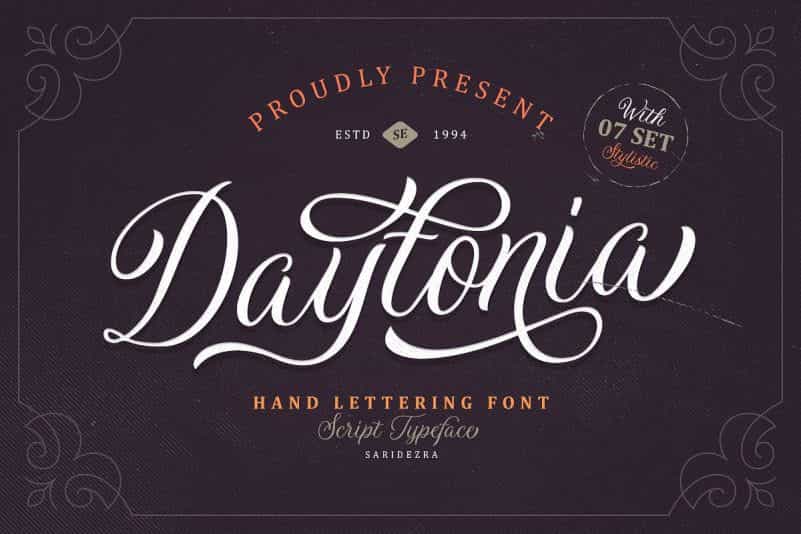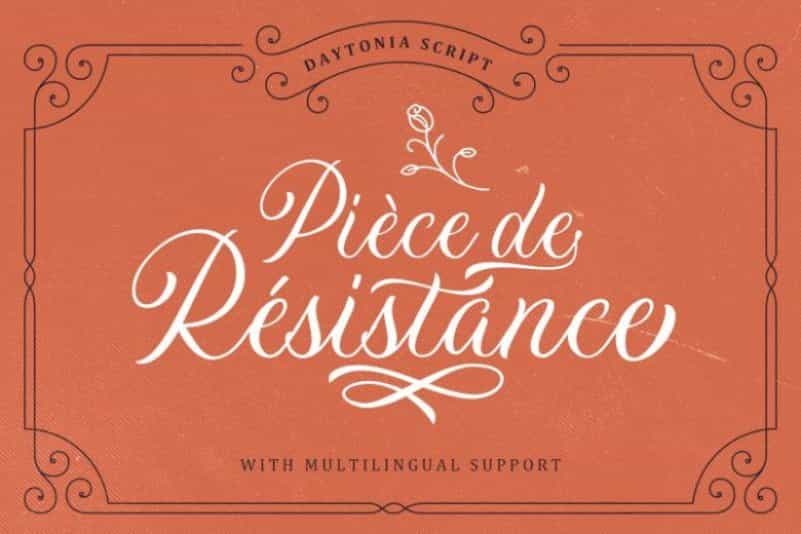
Daytonia Font is the newest product from us, now available for you. It is made and distributed by Sarid Ezra. Daytonia Script Font is a hand-drawn script font. You can apply this font to all the projects you are dealing with. Applicable for logo branding, hand lettering or even apparel design. This font as well has the multilingual, number and symbol support, alternates, swash and underline. This demo font is for PERSONAL USE ONLY.